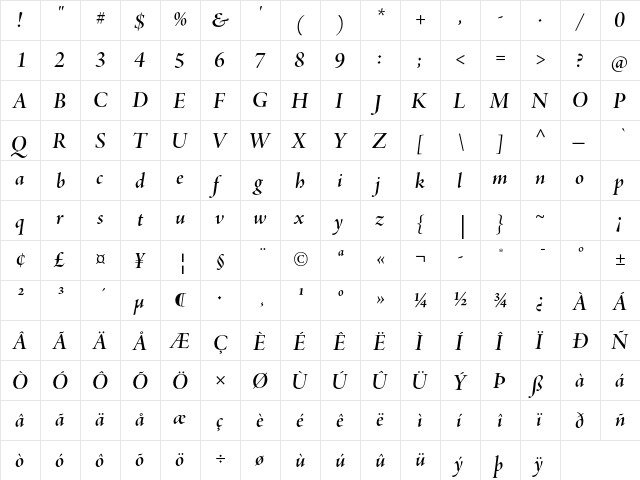
Adobe Jenson Pro Semibold Italic Display Font Preview
| Designer | Robert Slimbach |
Design Context for Adobe Jenson Pro Typeface
Adobe Jenson Pro is built around its visual character rather than neutral utility — its distinctive forms are designed to make an impression at display sizes. The dynamic lean of this cut emphasises speed and emphasis in any layout. Its bold stroke weight gives it real presence on the page.
Font Pairing: Pair with a clean neutral sans-serif for body copy to let Adobe Jenson Pro's character lead without overwhelming the composition.
Pro Tip: Use Adobe Jenson Pro exclusively at display sizes — it was designed to be seen, not read at length. Let a neutral companion handle body copy.